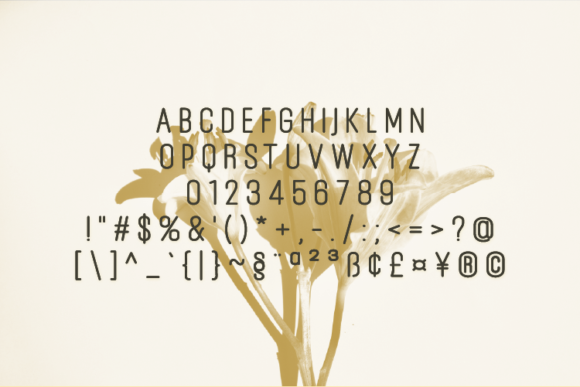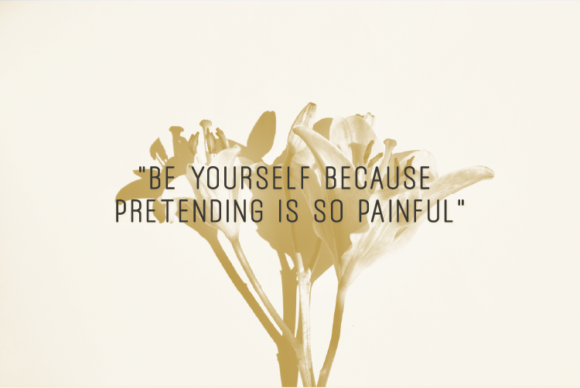
Dellione Font: The Ultimate Modern Sans Serif for Designers and Crafters
In the world of typography, fonts play a crucial role in conveying messages, expressing creativity, and establishing brand identities. For designers and crafters, finding the perfect font can be a daunting task, but today, we’re excited to introduce you to Dellione, a modern and clean sans serif font that’s taking the design community by storm.
What is Dellione Font?
Dellione is a versatile sans serif font that’s designed to look great in just about any context. With its smooth and clean lines, and just a touch of contrast, Dellione works beautifully for logos, branding, web headings, and much more. This font is perfect for designers and crafters who want to add a touch of modernity and sophistication to their projects.
Key Features of Dellione Font
- Modern and Clean Design: Dellione boasts a sleek and contemporary design that’s perfect for modern brands and designs.
- Sans Serif: The font’s sans serif design makes it easy to read and versatile for various applications.
- Smooth Lines: Dellione’s smooth lines ensure that your text looks crisp and clear, even at small font sizes.
- Touch of Contrast: The font’s subtle contrast adds depth and visual interest to your text.
- Versatile: Dellione works beautifully for logos, branding, web headings, and much more.
Use Cases for Dellione Font
Dellione’s versatility makes it suitable for a wide range of design projects, including:
- Logo Design: Create stunning logos that are both modern and memorable.
- Branding: Establish a strong brand identity with Dellione’s clean and sophisticated design.
- Web Design: Use Dellione for web headings, titles, and body text to create a cohesive and visually appealing website.
- Print Design: Dellione works beautifully for brochures, flyers, posters, and other print materials.
- Crafting: Add a touch of modernity to your crafting projects, such as handmade cards, invitations, and DIY signs.
Benefits of Using Dellione Font
By choosing Dellione font for your design projects, you’ll enjoy several benefits, including:
- Improved Readability: Dellione’s clean design ensures that your text is easy to read.
- Enhanced Visual Appeal: The font’s smooth lines and subtle contrast add visual interest to your text.
- Flexibility: Use Dellione for a wide range of design projects, from logos to web design.
- Time-Saving: With Dellione, you can create professional-looking designs quickly and efficiently.
In conclusion, Dellione font is a modern and clean sans serif font that’s perfect for designers and crafters looking to add a touch of sophistication to their projects. With its smooth lines, subtle contrast, and versatility, Dellione works beautifully for logos, branding, web headings, and much more. Whether you’re a seasoned designer or a crafting enthusiast, Dellione is an excellent choice for your next design project.